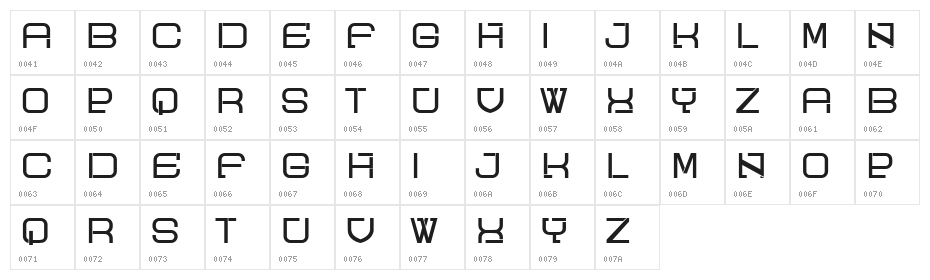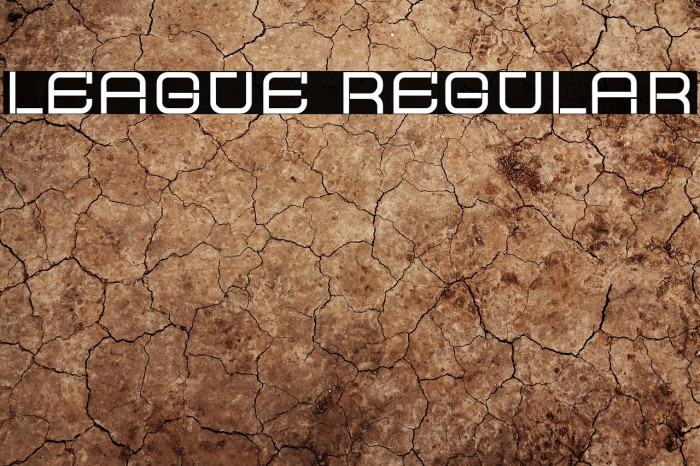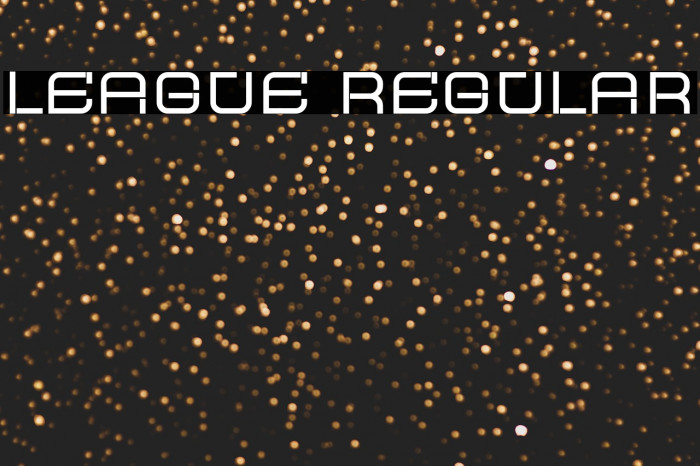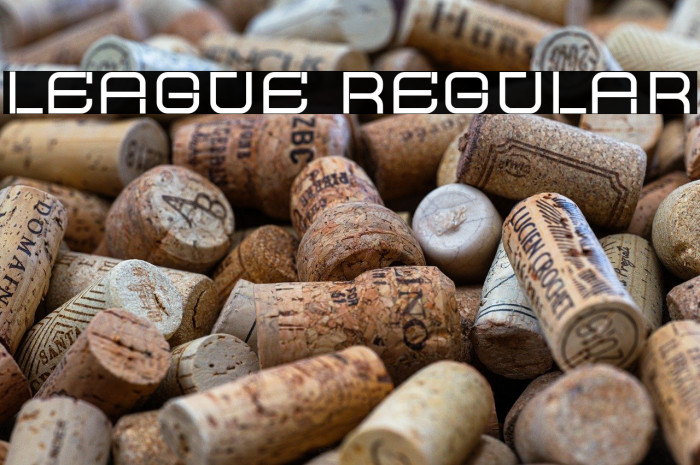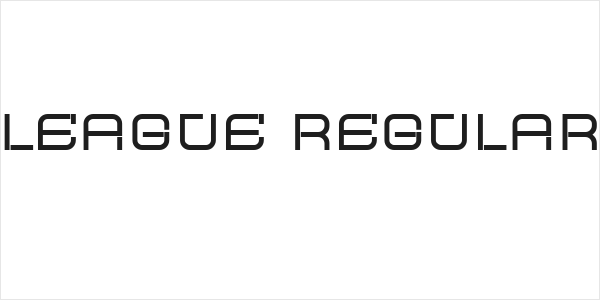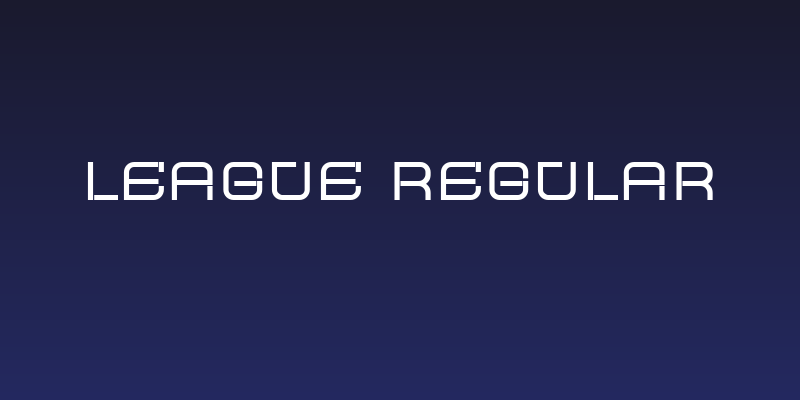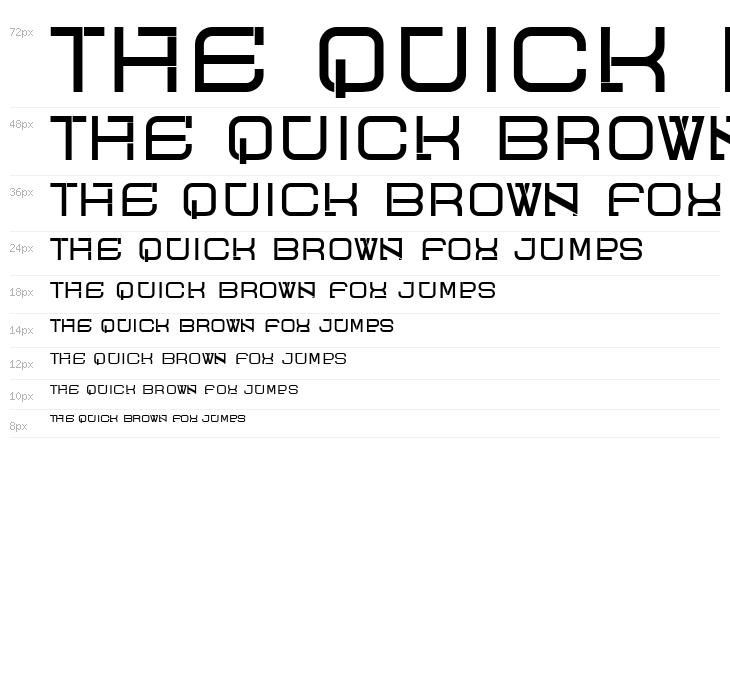
League Regular Font
League Regular Description
This font features a modern, geometric design with a distinct, futuristic appeal. The characters are constructed with clean, straight lines and sharp angles, giving them a technical and structured appearance. The uppercase letters are uniform in height, creating a cohesive and balanced look. The font's unique style is characterized by its open counters and minimalistic design, which enhances readability while maintaining a strong visual impact. The consistent stroke width across all characters contributes to its sleek and contemporary aesthetic, making it suitable for a variety of design applications.